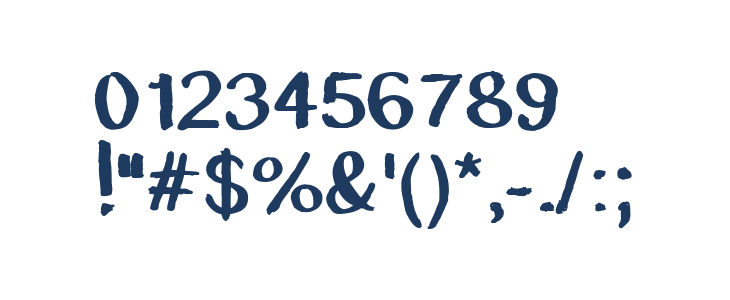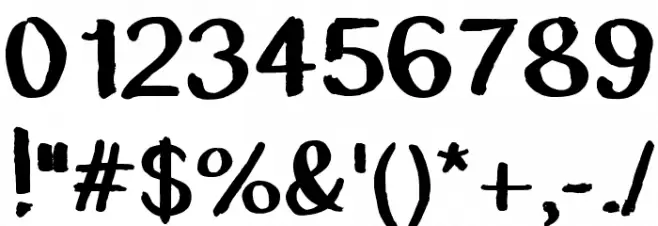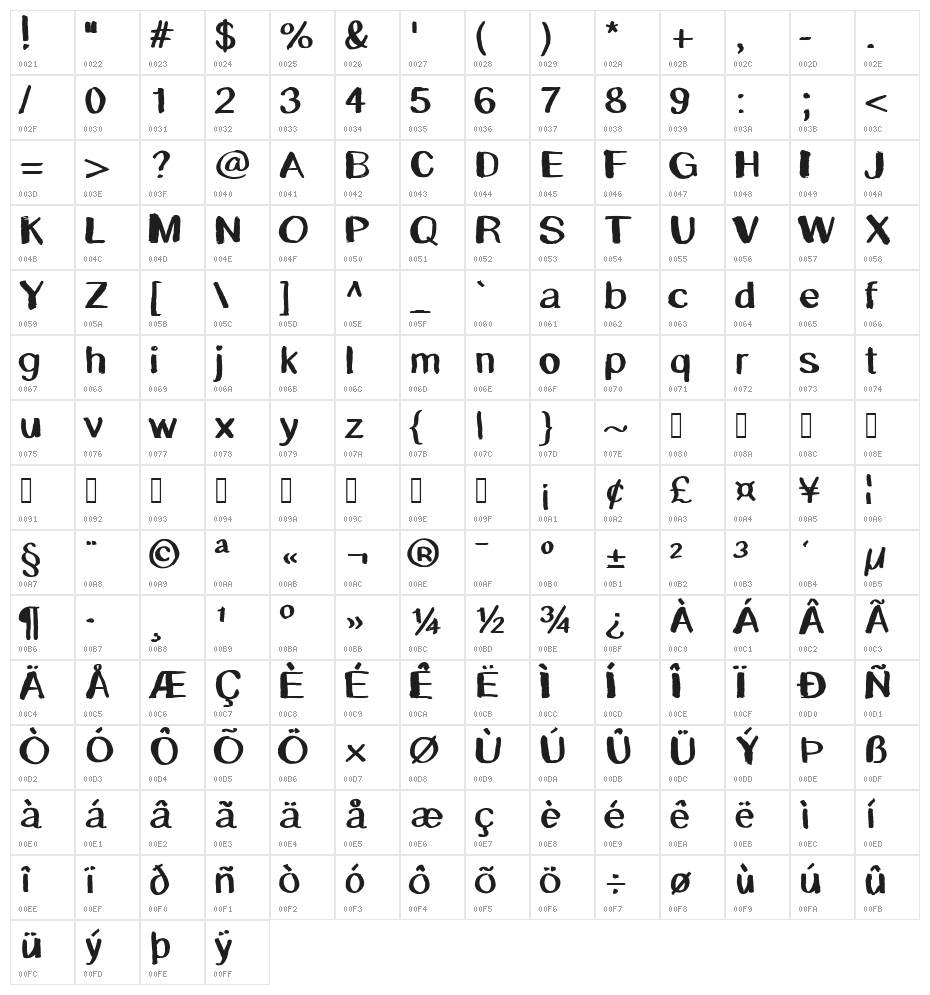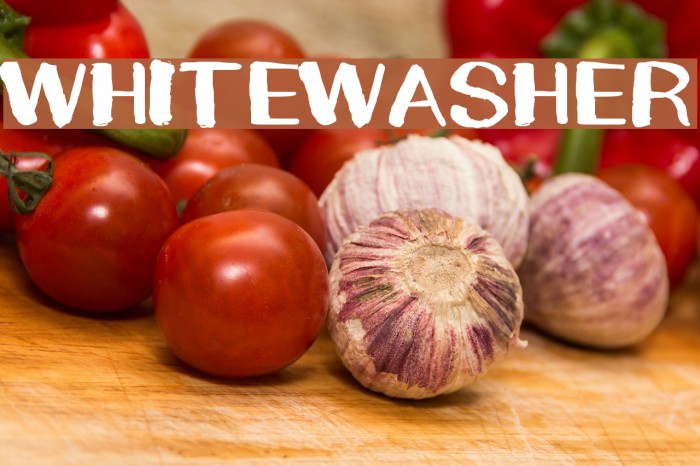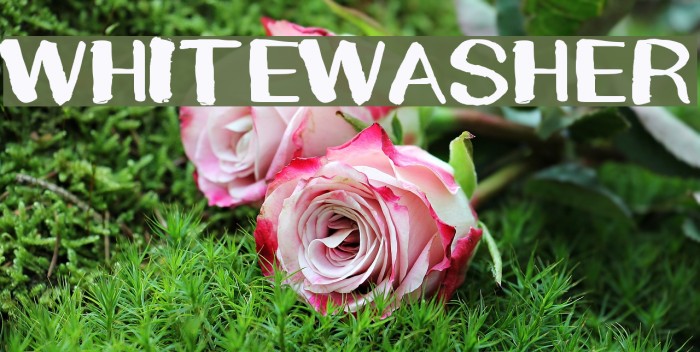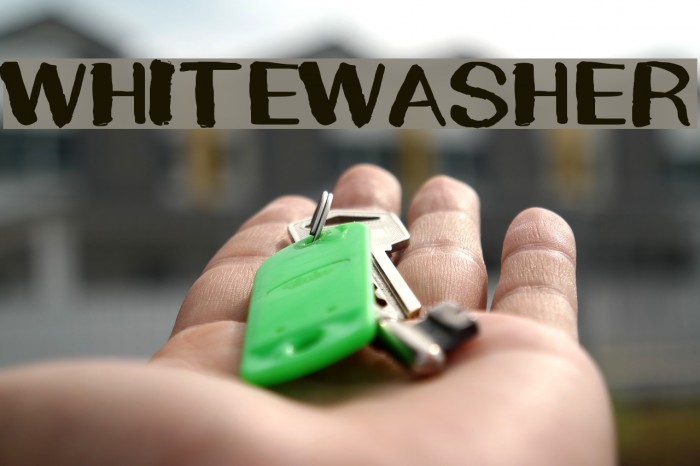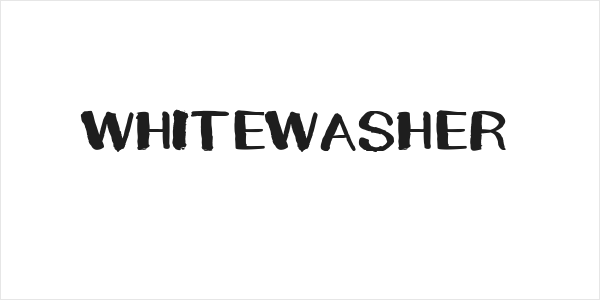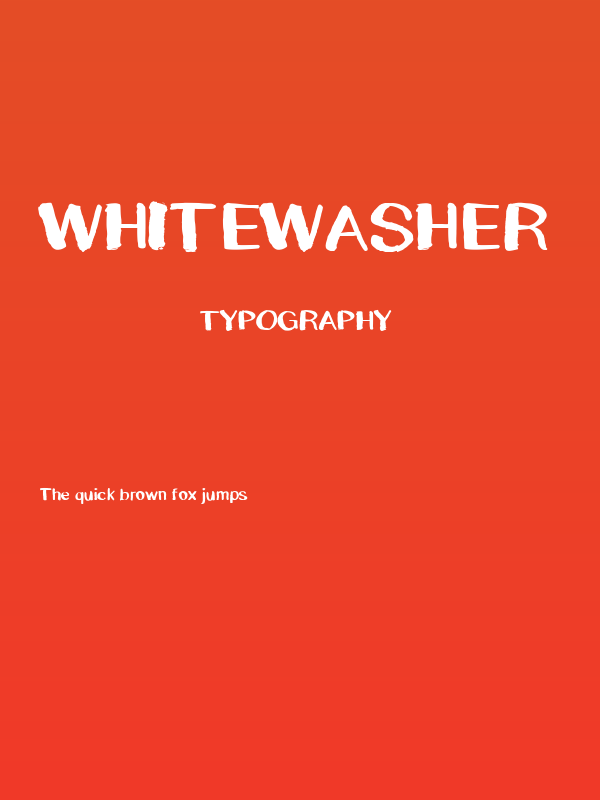
WHITEWASHER Font
WHITEWASHER Description
This font features a bold, hand-painted style with a slightly irregular and textured appearance, reminiscent of brush strokes. The characters are bold and expressive, with varying stroke thickness that adds a dynamic and artistic flair. The uppercase and lowercase letters maintain a consistent style, while the numerals and special characters complement the overall aesthetic. The font's organic and handcrafted look makes it suitable for projects that require a personal and creative touch.
| Use Case | Logos, Posters, Branding |
| Proposed Projects | Ideal for artistic projects, posters, branding, and packaging that require a handcrafted and expressive look. |